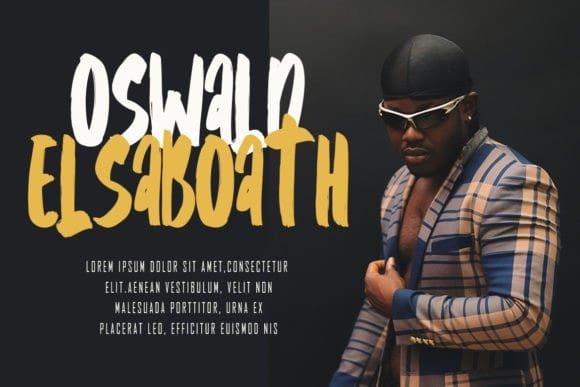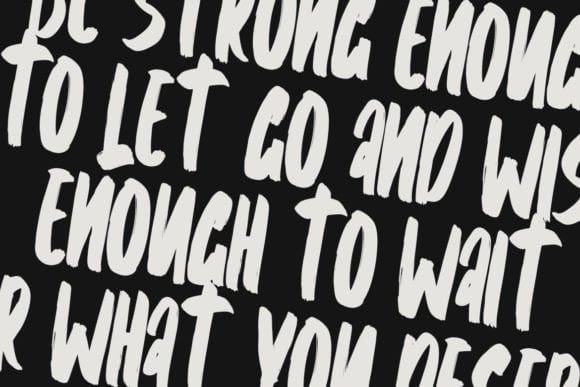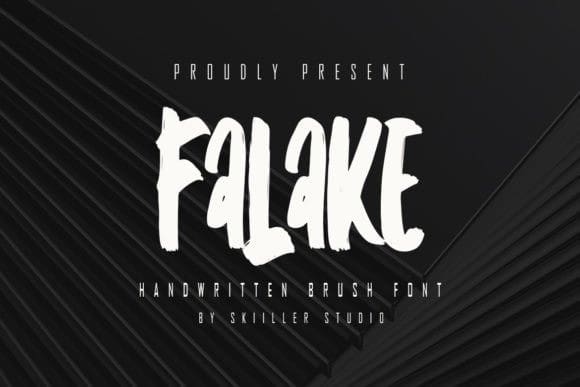
Falake Brush Font
Falake Brush Font is a modern handwritten display font, crafted to give your headlines and logotype projects a stylish touch. This font reads as strong, confident, and dynamic and can add tons of character to your designs.